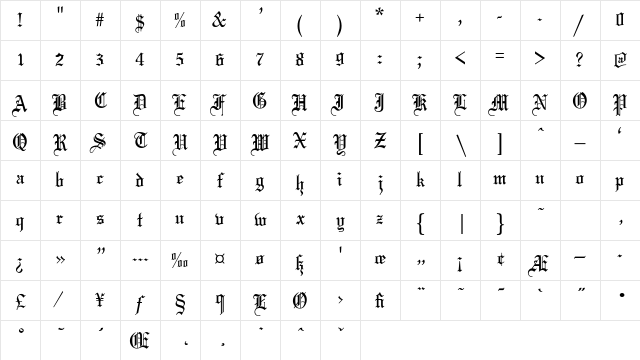
Mariage-Normal Regular
Mariage-Normal Family
Design Context for Mariage-Normal
Mariage-Normal is a composed and adaptable typeface that performs quietly and consistently across a wide range of design contexts.